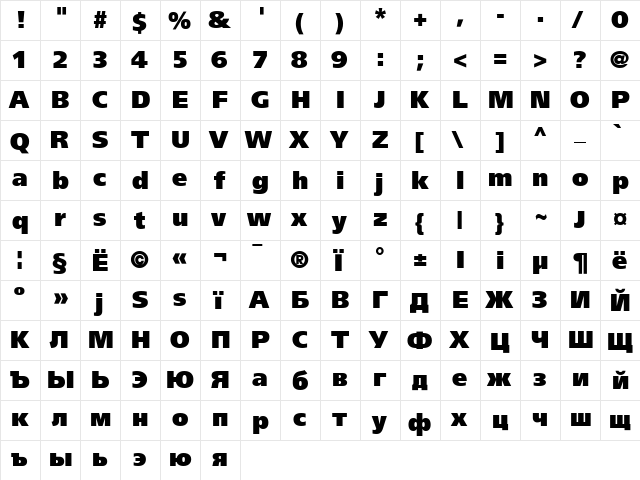
AG ForeignerULB-Plain Medium
Design Context for AG ForeignerULB-Plain Typeface
AG ForeignerULB-Plain is a composed and adaptable typeface that performs quietly and consistently across a wide range of design contexts.